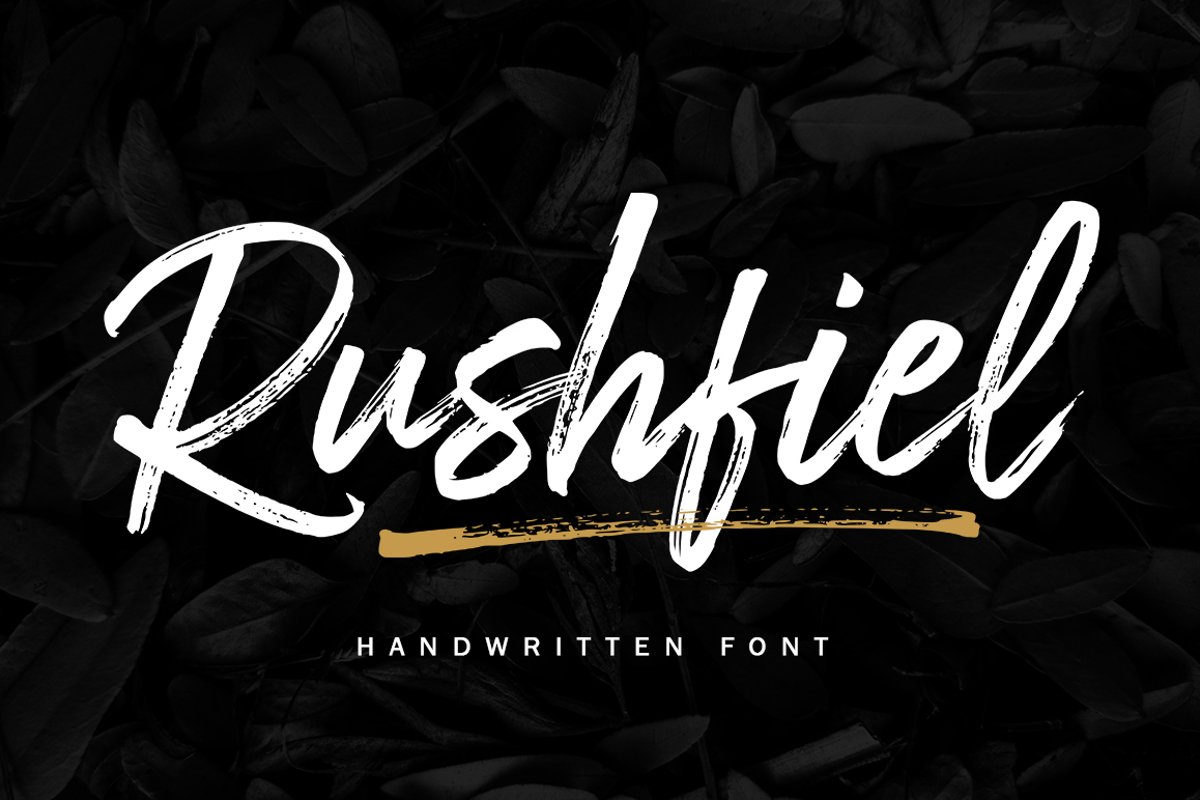
Introducing Rushfiel, a handwritten font made with quick-drying brush strokes in a distinctive styles. It's perfect for branding projects, household appliances design, product packaging or just as a text overlay for background images or posters.